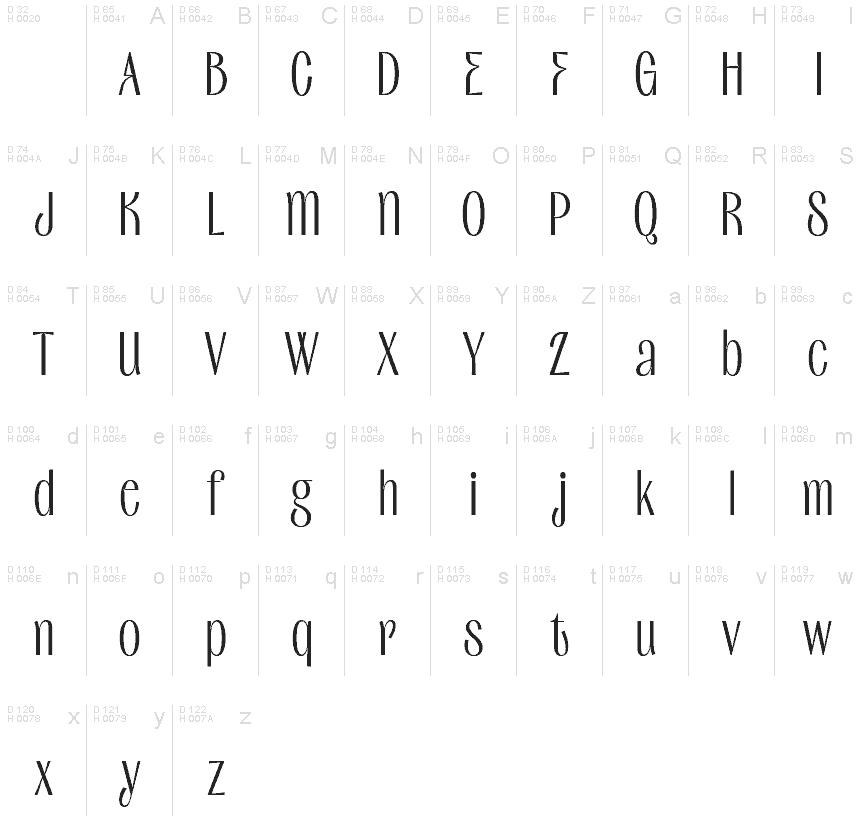
CS Arletas Regular Demo
CS Arletas font by Craft Supply Co. is a condensed light sans serif with an elegant and sophisticated design. The font has a modern style with a touch of artistic flair showcased through its gentle decorative elements and emphasized through its light yet bold weight. CS Arletas has a high fashion appeal that comes out best when used in large.
This free sans serif is perfect for blogs, businesses, advertising, labeling, headlines, covers, packaging designs for luxurious products such as perfumes or cosmetics, special magazines or newspapers issues titles and posters. It fulfills simple editorial typography use cases but can also be used to design fashion-related logos among other things.